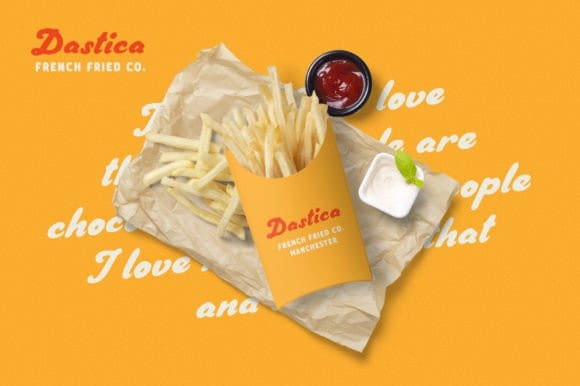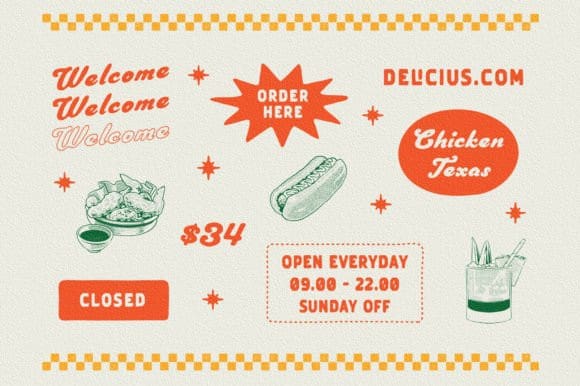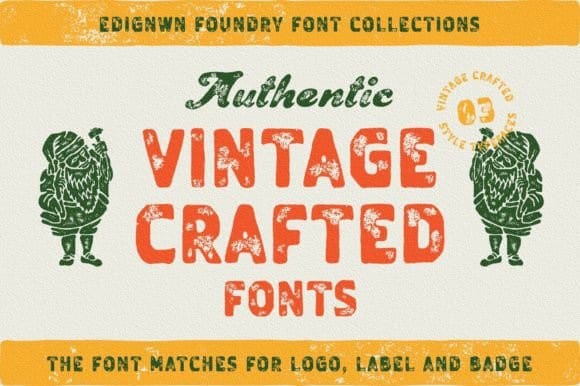
Vintage Crafted Font Duo
Vintage Crafted Font Duo is a cool, retro-style display font, crafted to give your headlines and logotype projects a stylish touch. This font reads as strong, confident, and dynamic and can add tons of nostalgic character to your designs.